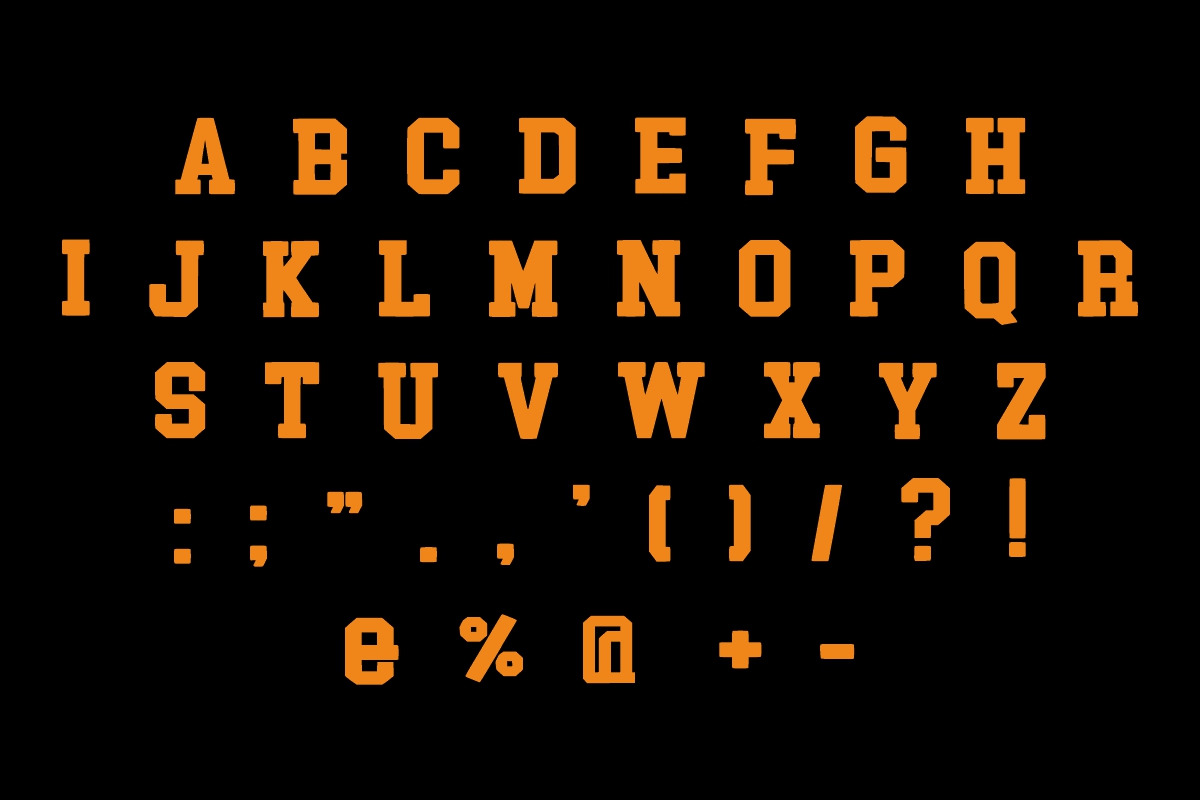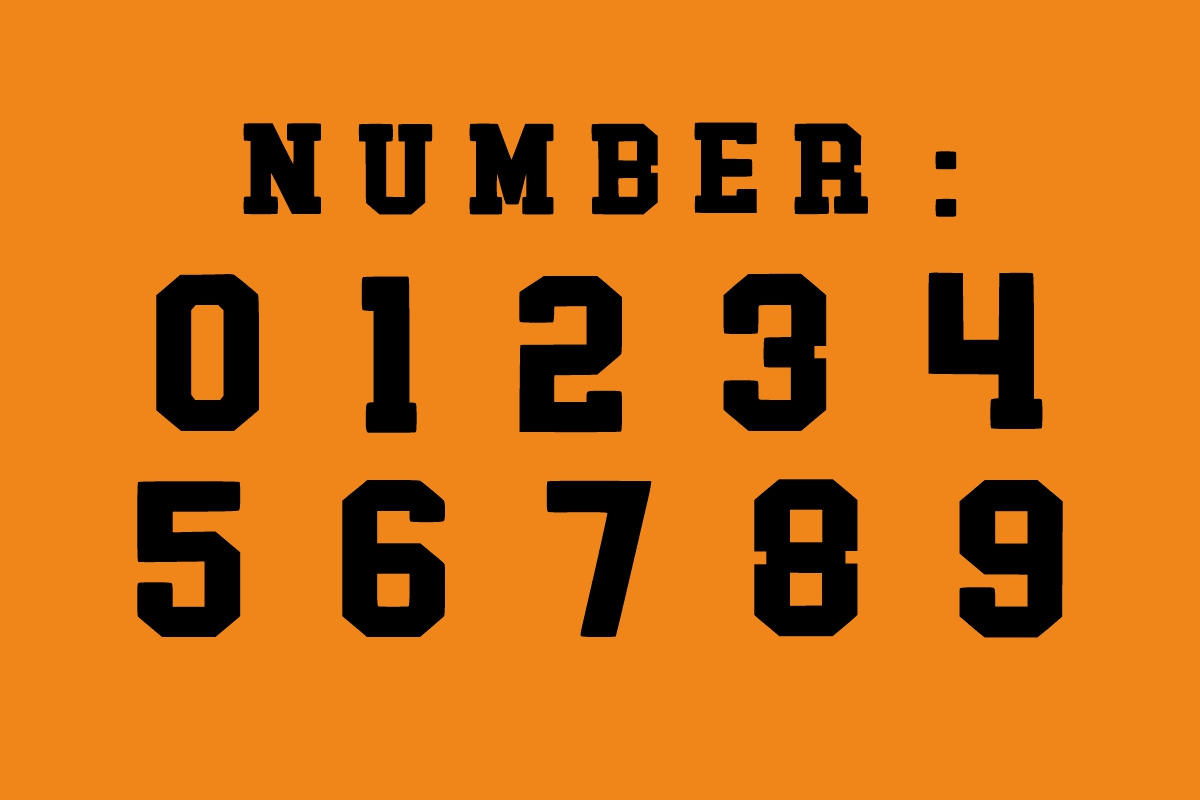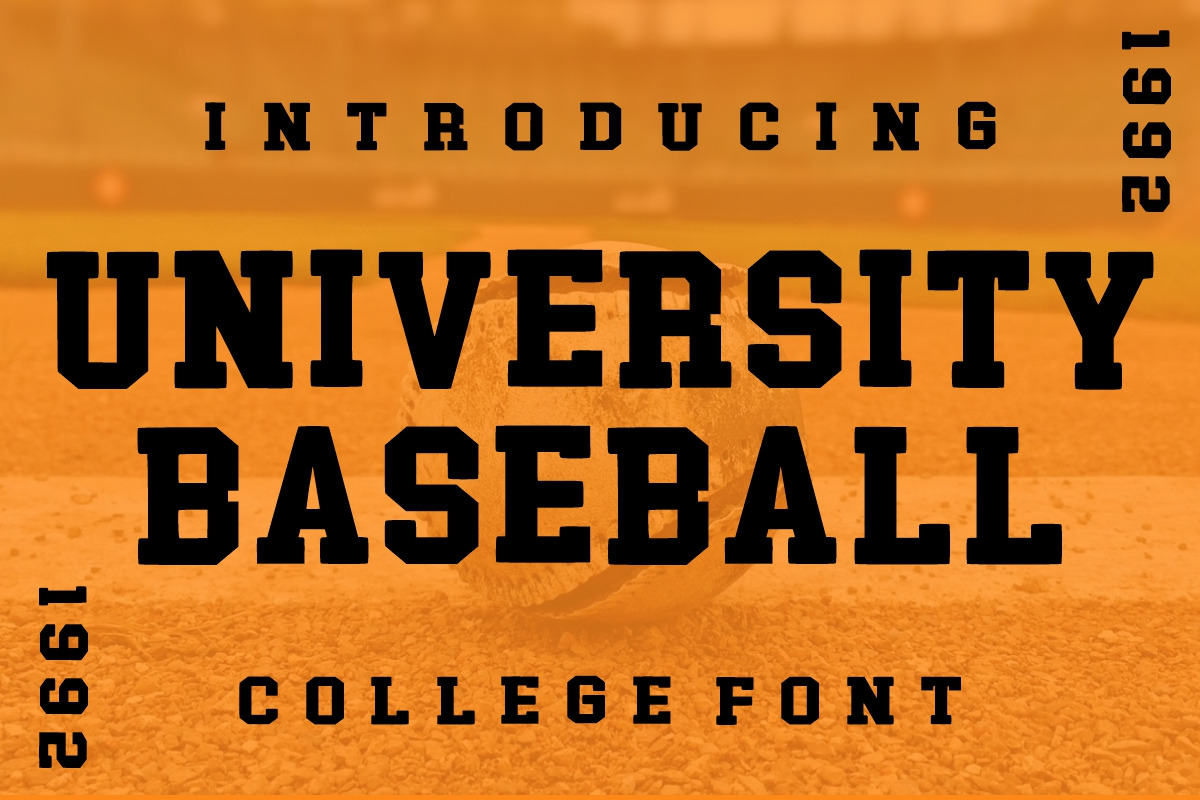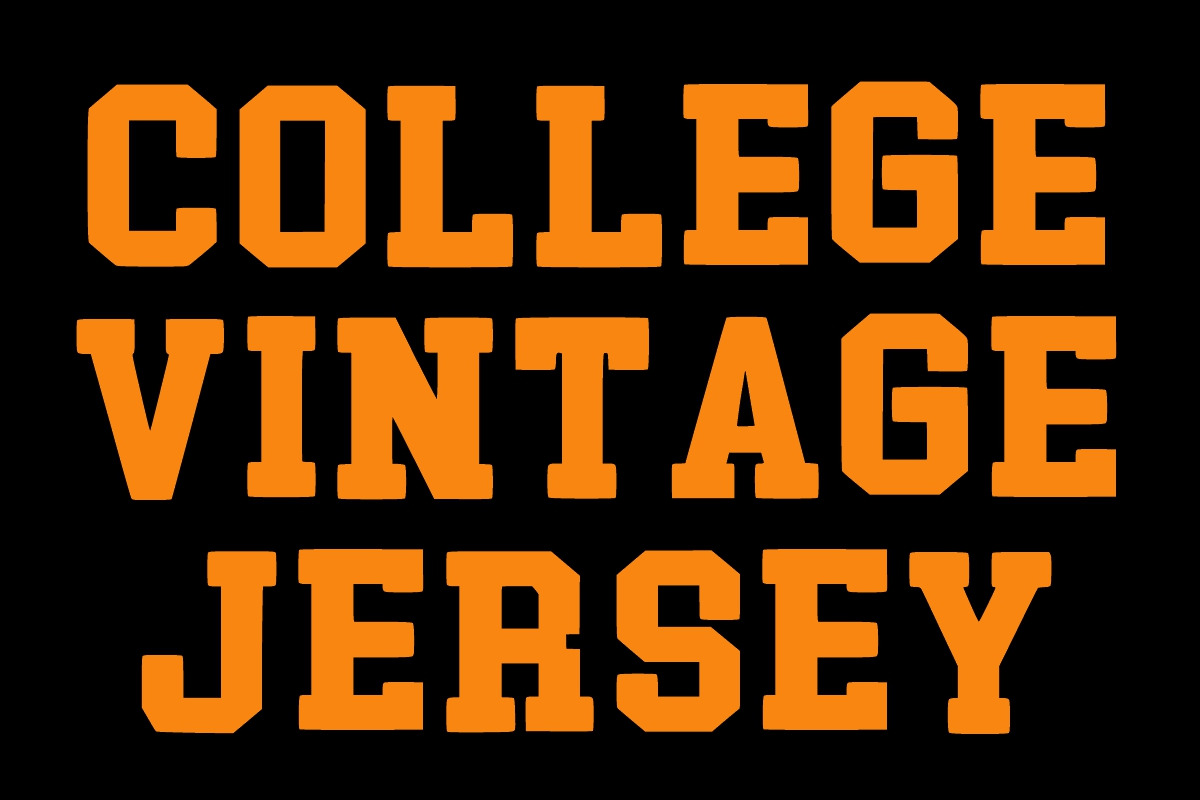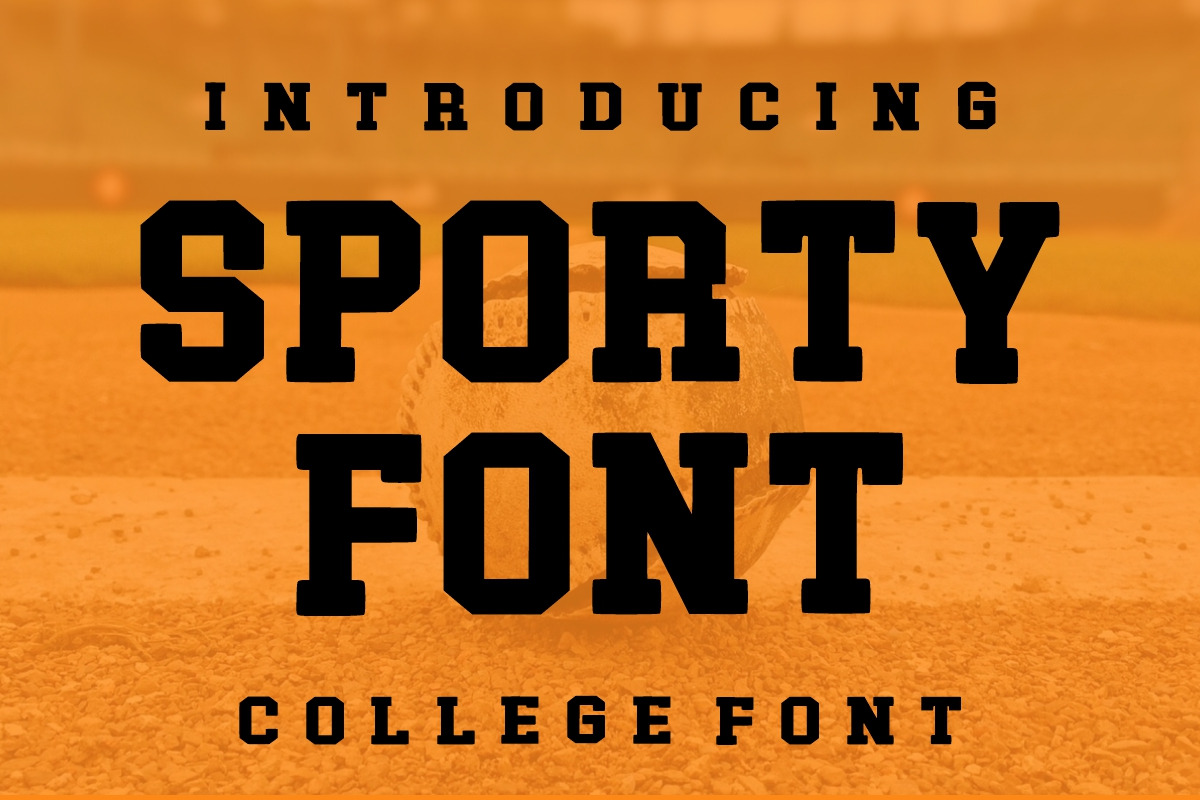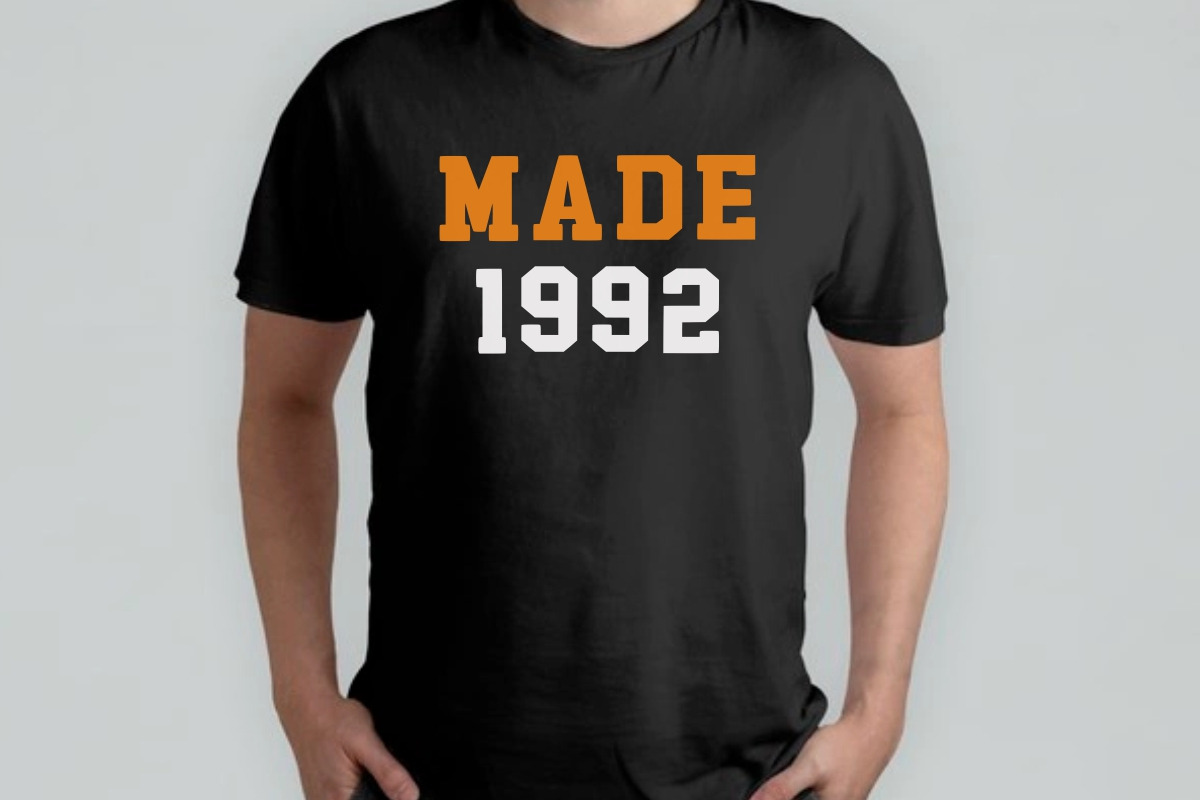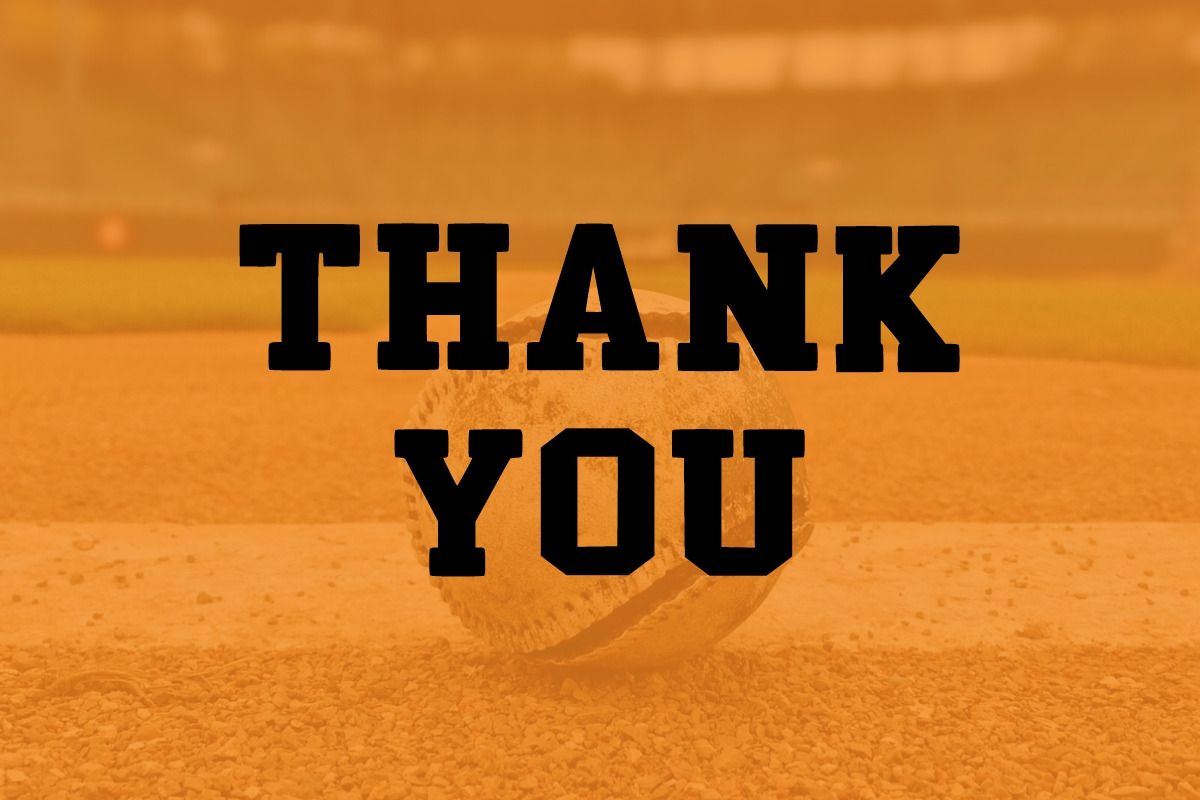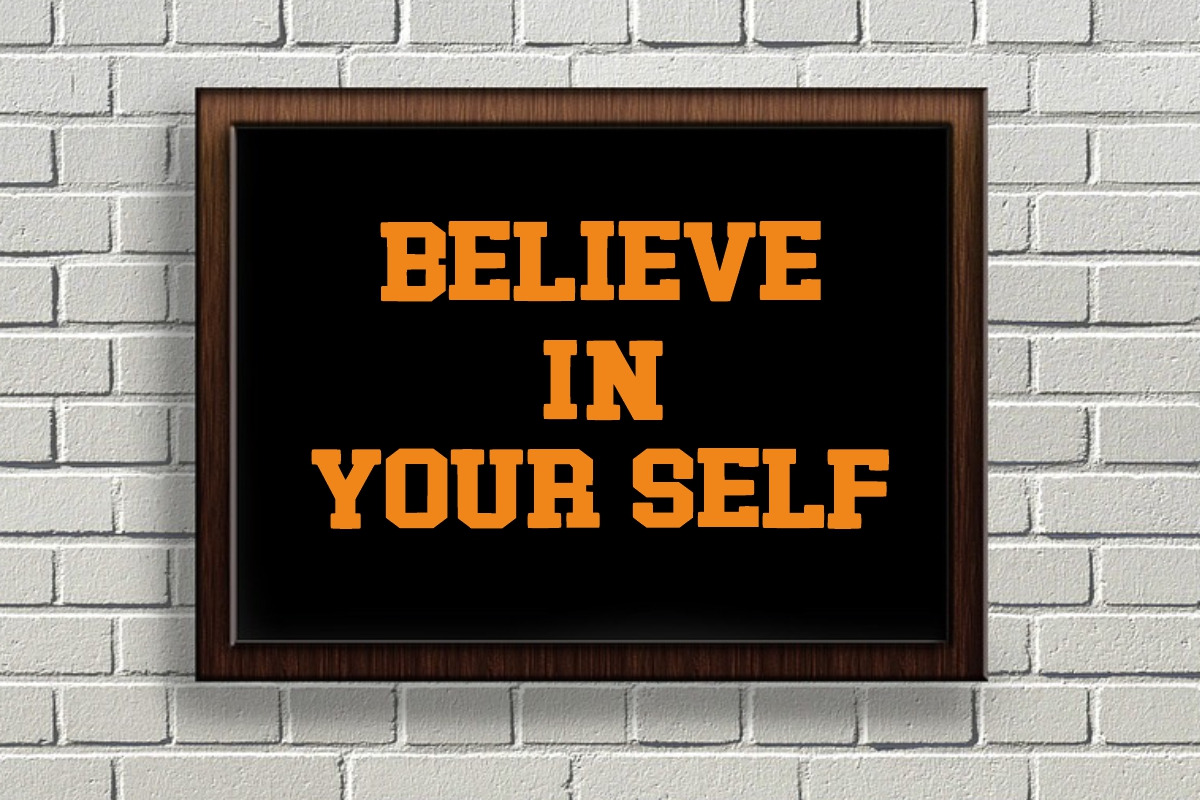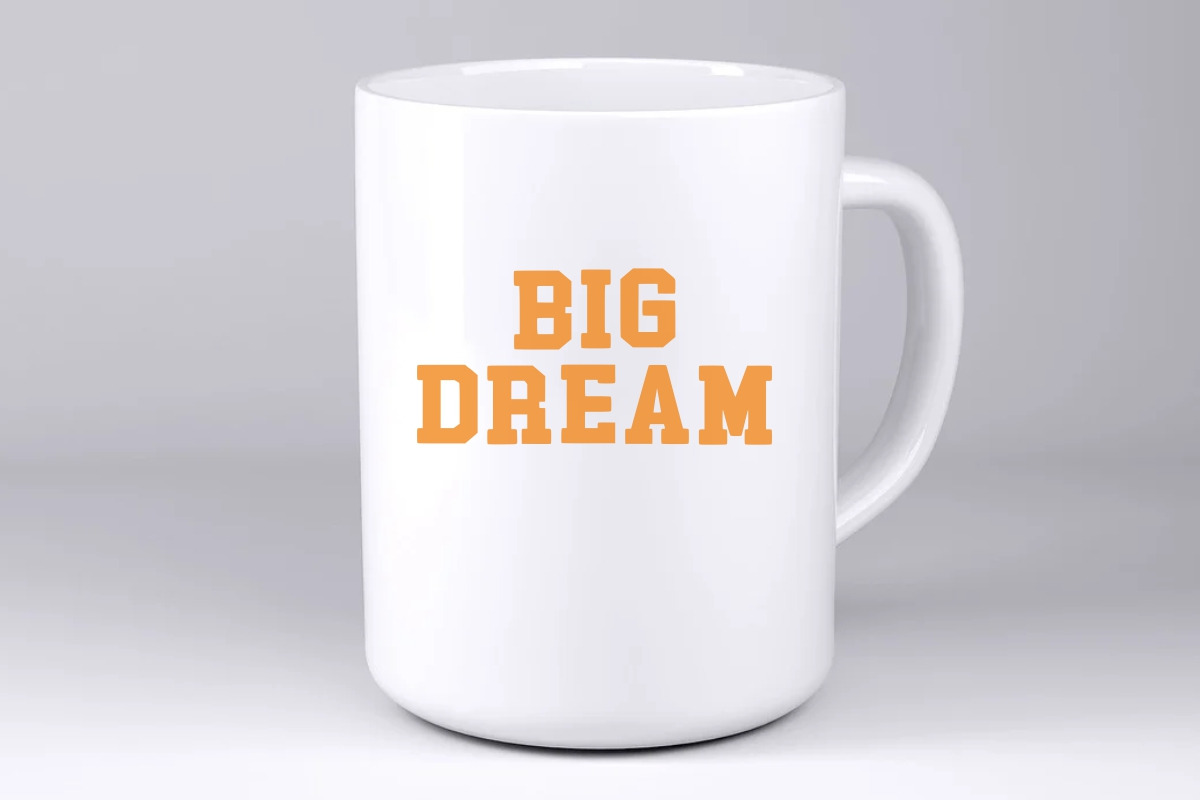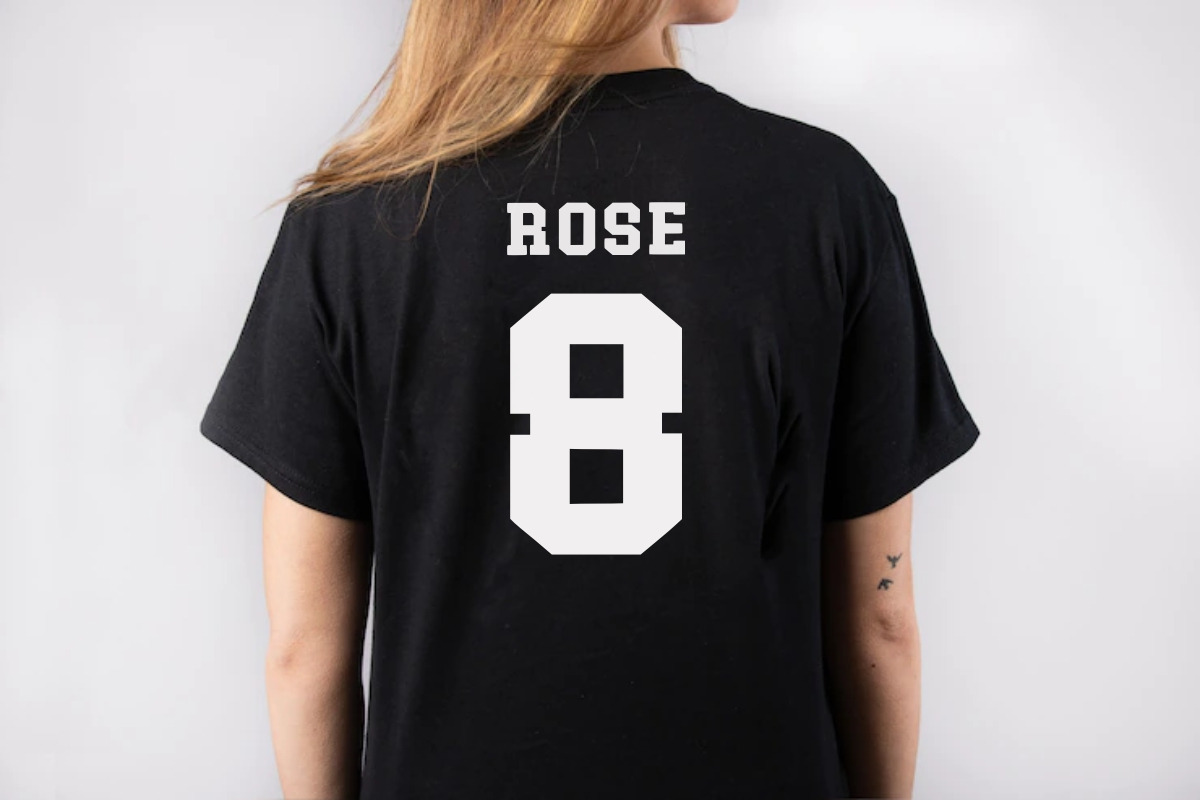
UNIVERSITY BASEBALL COLLEGE FONT
UNIVERSITY BASEBALL is a Vintage Collage, Varsity modern and bold display font. It is suitable for any winter and holiday branding project, product packaging, invitation, quote, t-shirt, label, poster, text effect, label, and logo that you wish to develop.